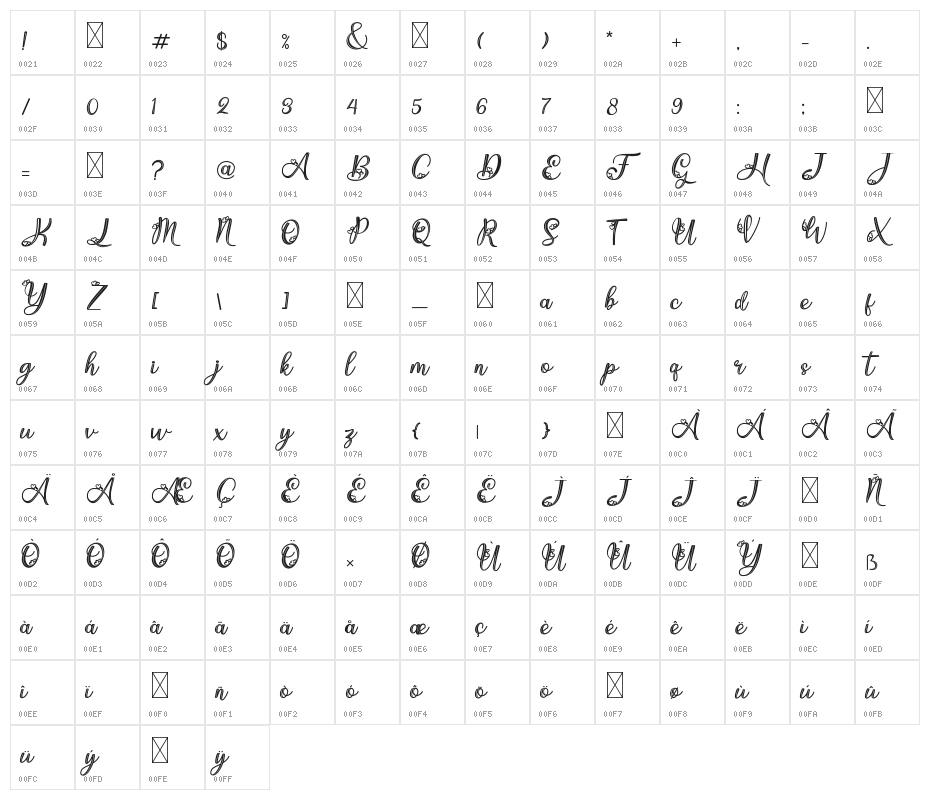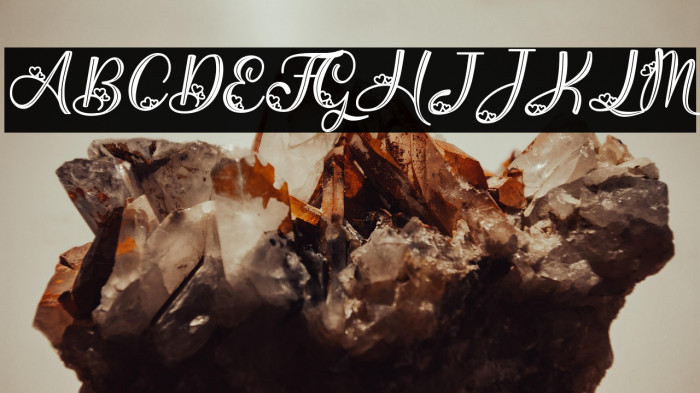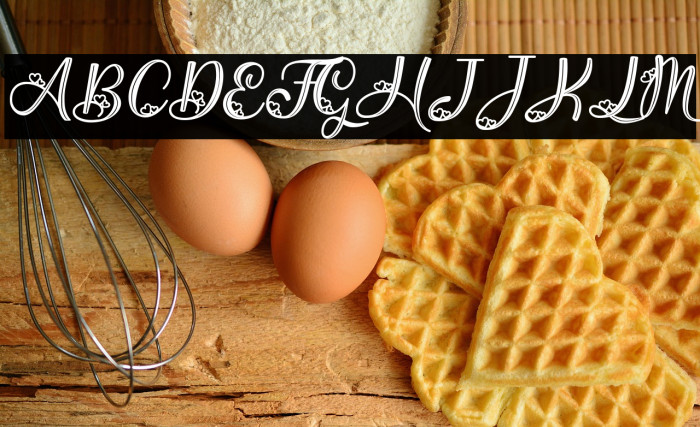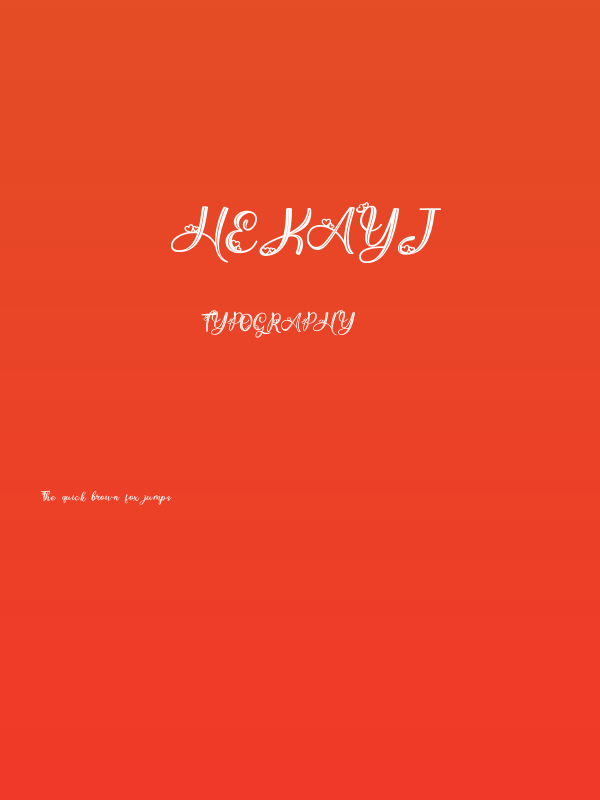
Hekayi Font
Hekayi Description
This font features an elegant and decorative script style, characterized by its flowing, cursive letters adorned with small floral embellishments. The uppercase letters are particularly ornate, with each character showcasing unique flourishes that add a touch of whimsy and sophistication. The lowercase letters maintain a more consistent script style, offering a smooth and connected appearance. The numerals are clear and legible, following the same cursive theme. Special characters are included, maintaining the decorative elements seen throughout the alphabet. This font is ideal for projects that require a touch of elegance and creativity.